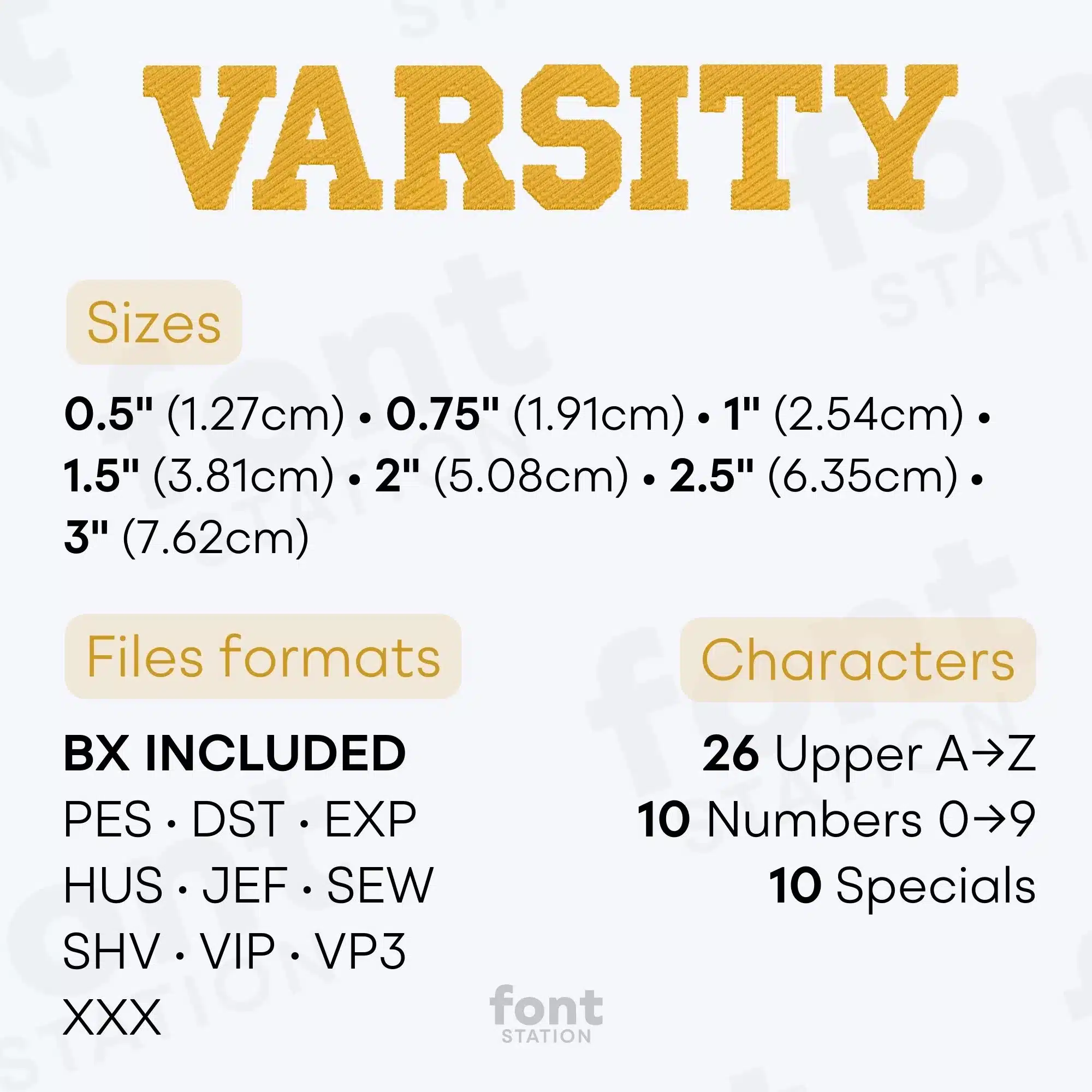
Bring bold team spirit to your designs with our Varsity embroidery font!
Give your embroidery projects a classic athletic look with our Varsity embroidery font. Professionally digitized for clean, high-quality stitching on most fabrics, this bold, block-style alphabet is perfect for sportswear, varsity jackets, and school-themed designs. Customers love the strong, sporty vibe—and we can’t wait to see what you create with it!
- Characters: Uppercase Letters A-Z, Numbers 0-9, 10 Special Characters
- Stitch Type: Satin & Fill Stitch
- High-Quality Embroidery Font Design: Every character has been expertly digitized to ensure clean stitch lines and professional results.
- Great for Any Project: Ideal for embroidery font designs, gifts, bags, t-shirts, and more.